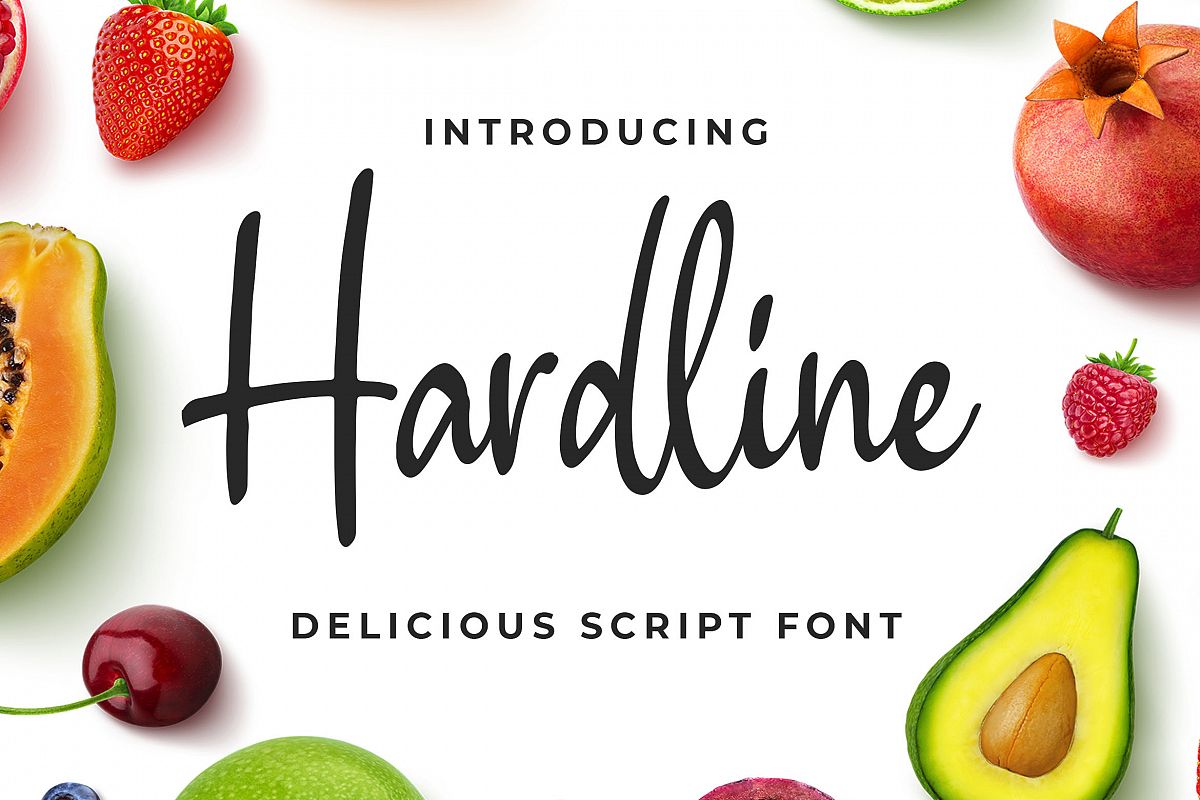
Introducing of our new product the name is Hardline Delicious Script Font. Hardline inspired by modern calligraphy this font is a fun theme very good for signature, poster, food, wedding, branding etc
MULTILINGUAL ACCENT :
ŽžŠŒšŸÀÁÂÃÄÅÆÇÈÉÊËÌÍÎÏÐŁÑÒÓÔÕÖØÙÚÛÜÝßàáâãäåæçèéêëìíîïłñòóôõöøùúûüýÿFEATURES :